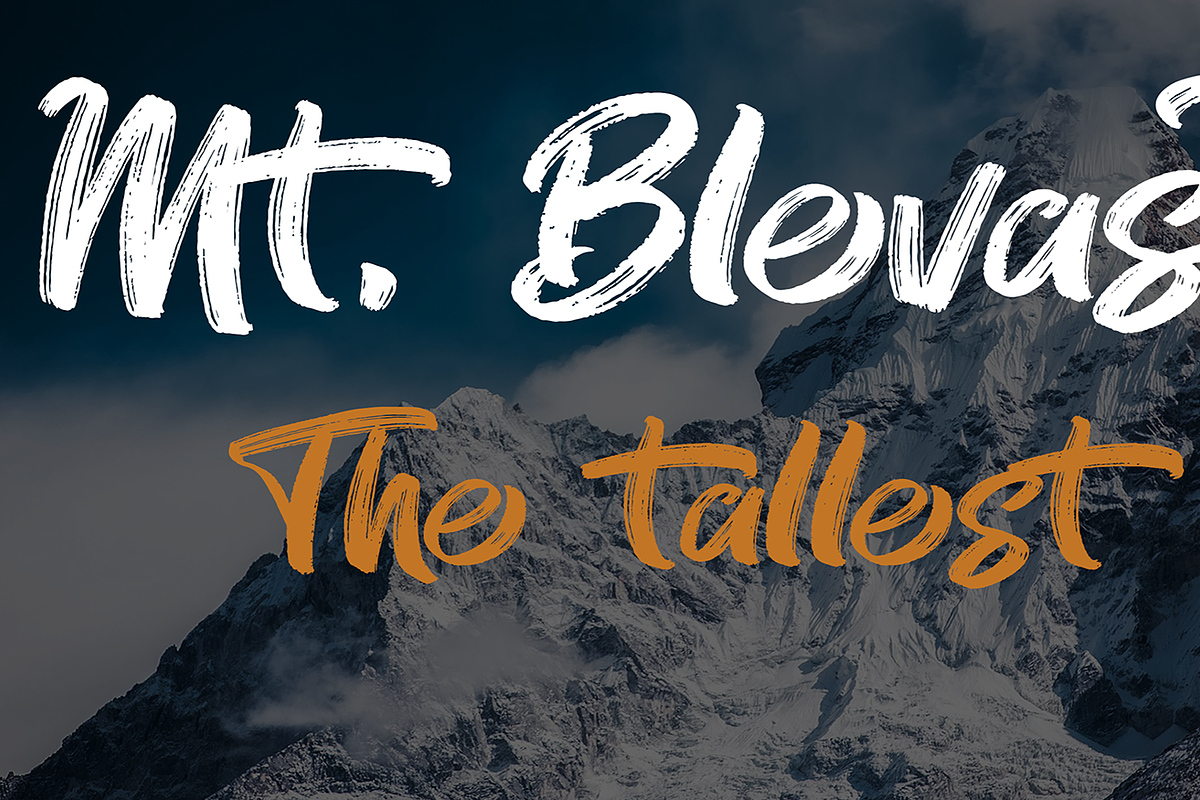
Mt. Blevas
Introducing
Mt. Blevas
- Script brush inspired font with effects perfect on your school projects, covers, etc.
- Lifestyle brush theme font for branding, website, mobile app etc.
- Available in Uppercase, Lowercase, Numbers, Punctuations and Symbols.